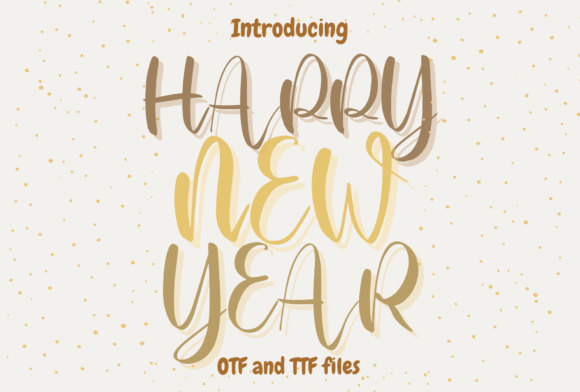
Are you ready to add a touch of charm and elegance to your next project? Look no further than the Happy New Year Font! Created by usasuwannahong, this script font is the perfect choice for business presentations and beyond. Let's dive into why this font is a must-have for anyone looking to make a lasting impression.
First and foremost, the Happy New Year Font exudes a delightful and playful vibe that is sure to captivate your audience. With its handwritten style, it adds a personal touch to your designs, making them stand out from the crowd. Whether you're creating a presentation for your clients or designing an advertisement, this font will add a touch of warmth and friendliness that is hard to resist.
But don't let its charm fool you – this font also means business. Its sleek and uncomplicated design ensures that your message is delivered with clarity and professionalism. The Happy New Year Font is perfect for educational purposes, allowing you to create engaging worksheets, lesson plans, and educational materials that will leave a lasting impact on your students.
Not only that, but this versatile font is a powerhouse when it comes to advertising. Its eye-catching style will instantly grab attention and draw potential customers to your brand. Whether you're designing a logo, a flyer, or a social media post, the Happy New Year Font will help you make a bold statement and leave a lasting impression on your target audience.
Illustrators will also find this font to be a valuable addition to their toolkit. Its fluid strokes and unique letterforms lend themselves perfectly to creating stunning artwork. Use it to add a touch of whimsy to your illustrations, comics, or even children's books. Let your creativity run wild and watch as your creations come to life with the Happy New Year Font.